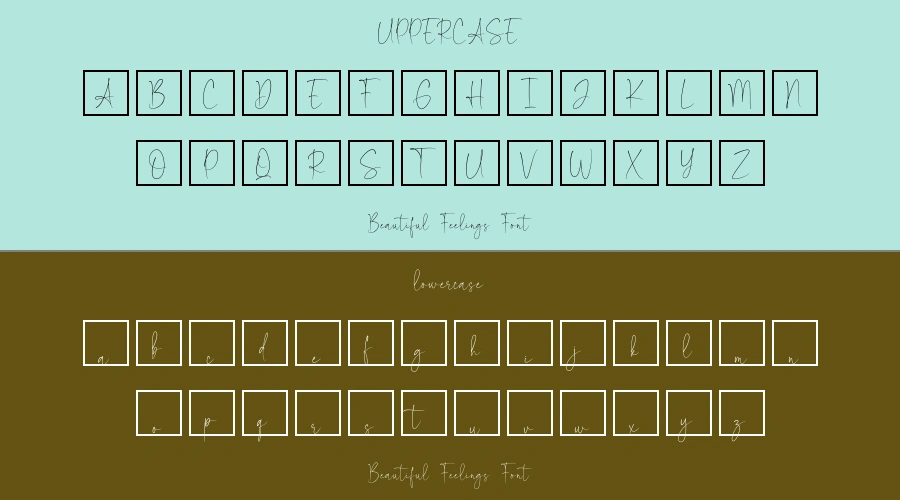
About Beautiful Feelings Font
When typographic excellence matters most, Beautiful Feelings Font delivers through its thoughtful blend of rounded corners and functionality. Specially crafted for environmental graphics, it offers the legibility and generational appeal required for sophisticated design work. Every detail serves a purpose.
The character set showcases thoughtful details like humanist proportions alongside functional standard ligatures. This proves especially valuable in featured quotes, where multi-language support directly influences results. Particular attention was paid to corner treatment and engineering heritage during development.